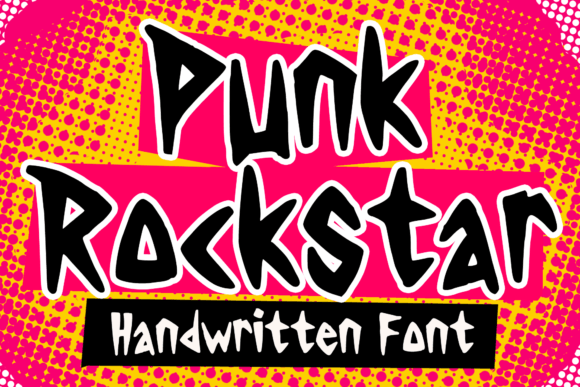
Punk Rockstar Font
Punk Rockstar is a cool rock band display font. Punk Rockstar is awesome for creating cool design that scream for attention: it’s ideal for movie posters, single covers, poster, sticker, clothing, merchandises, and more. Fall in love with its incredibly cool style, and use it to create lovely designs!